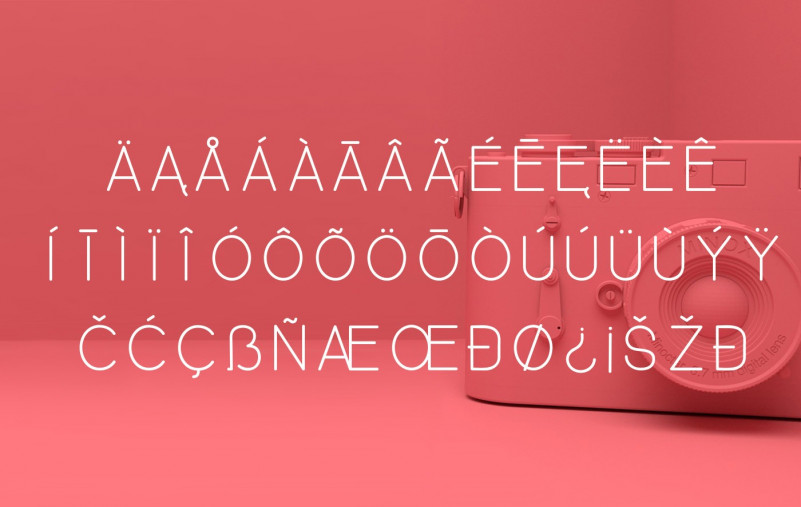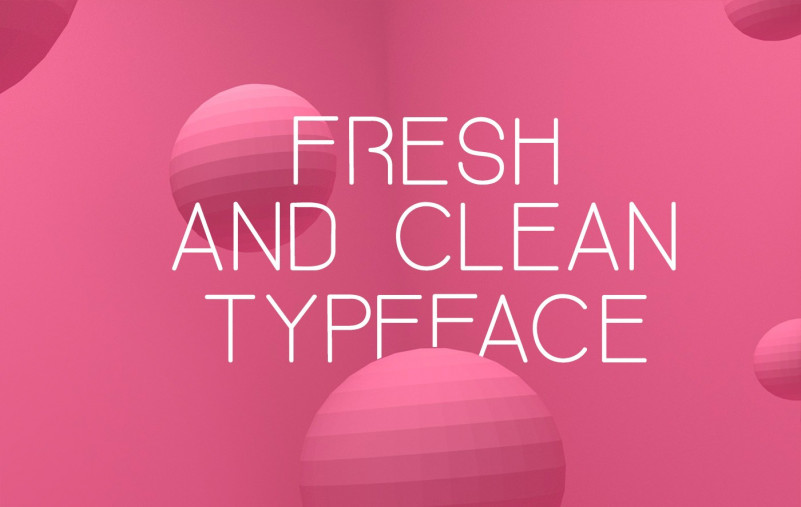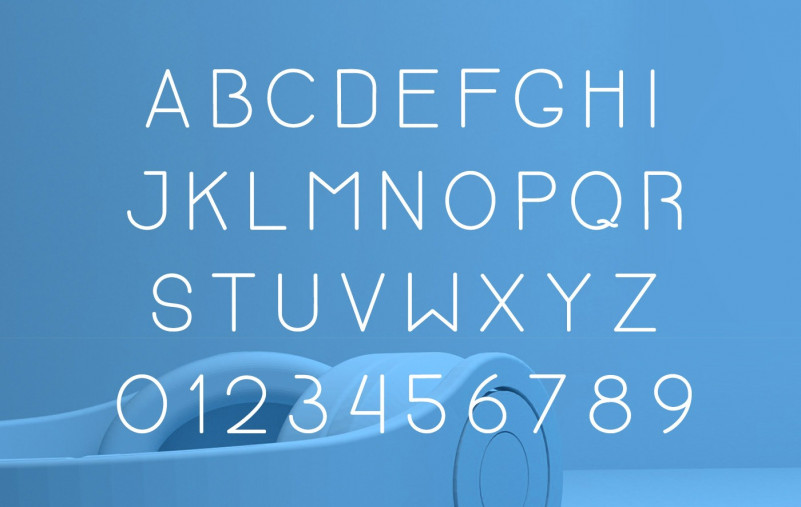
Hello Font Lovers! Bavro Free Font is a sans serif font inspired by a minimalistic and geometric design. It is design and shared by Twicolabs Fontdation. This is elegant sans serif font. The font is all caps with stylistic alternate, will satisfy the most projects like banner, advertisement, logo, magazine, fashion, and other.